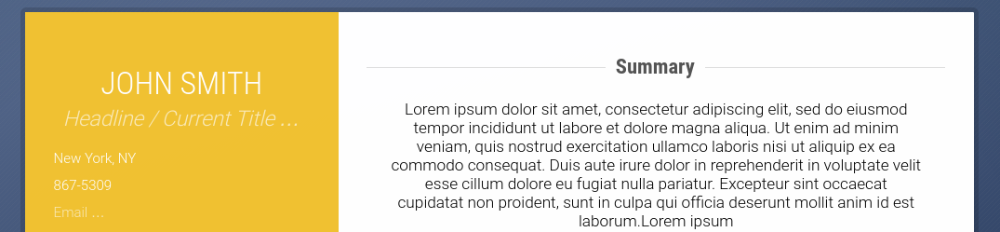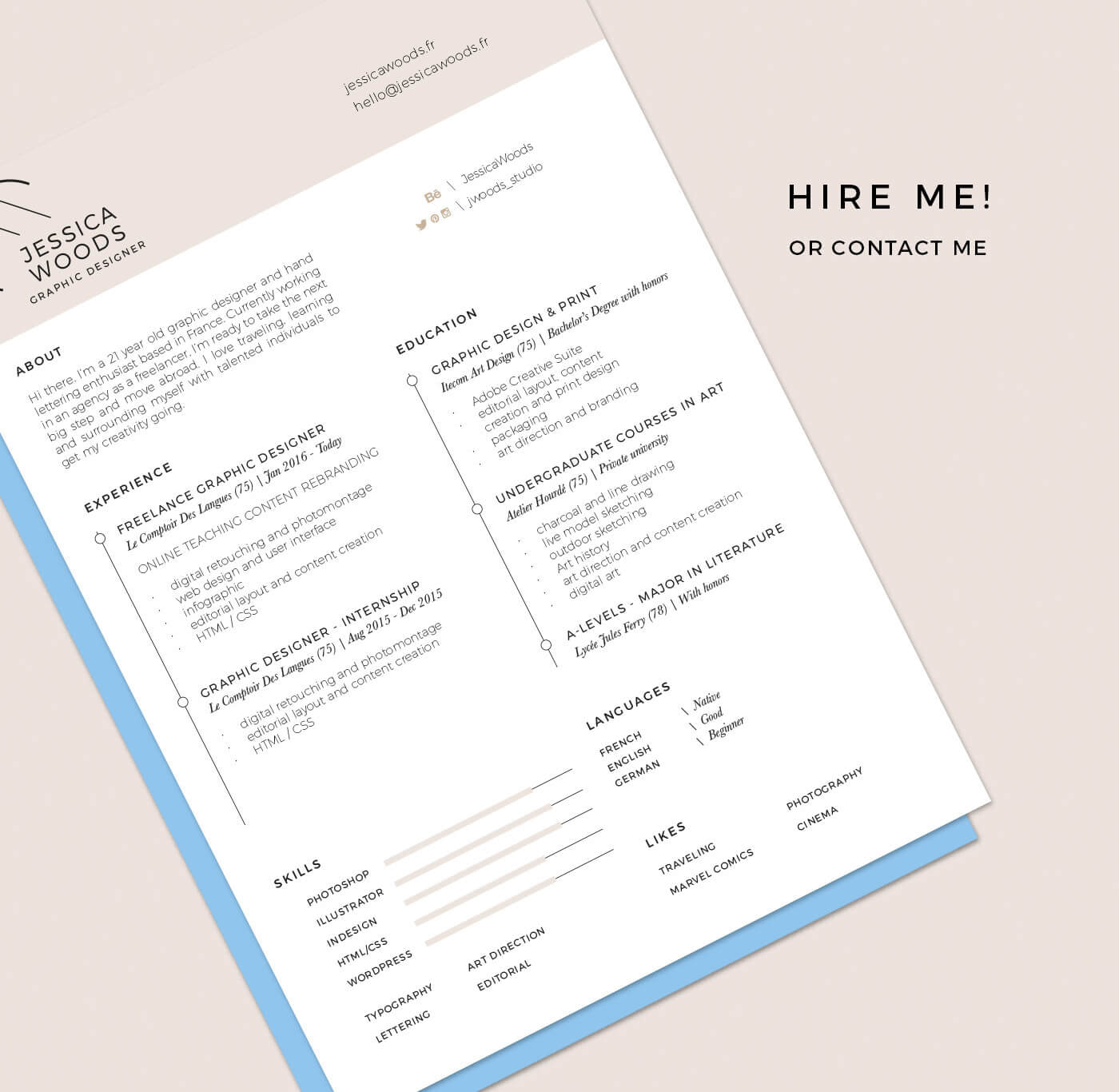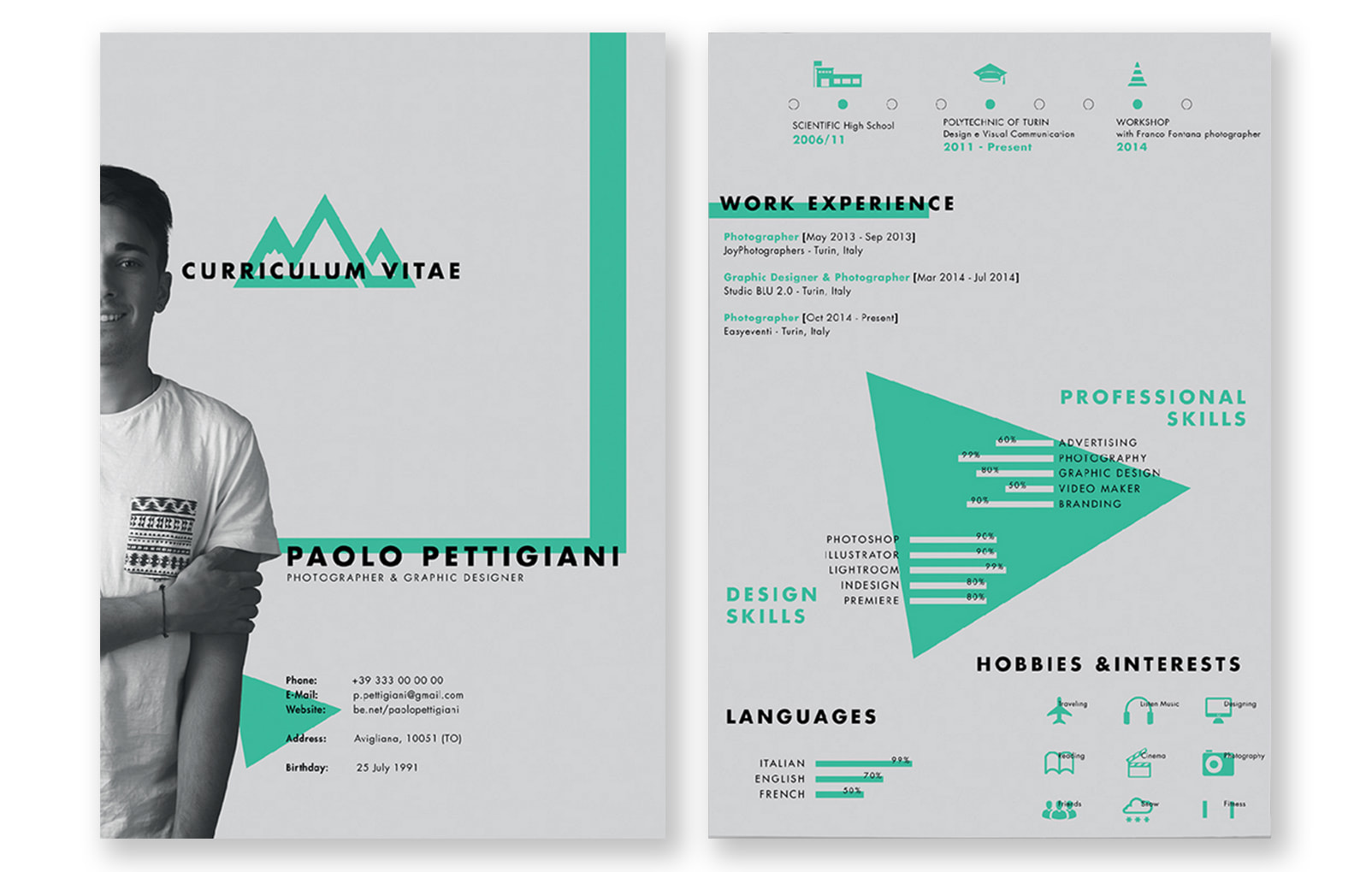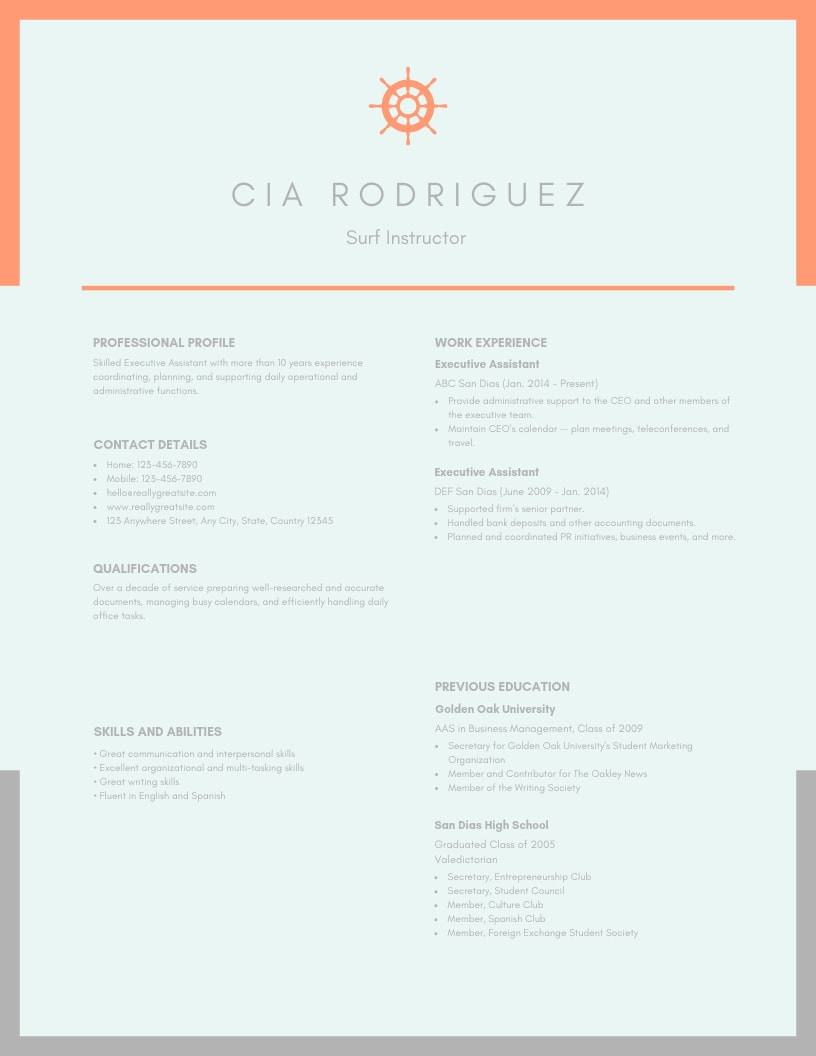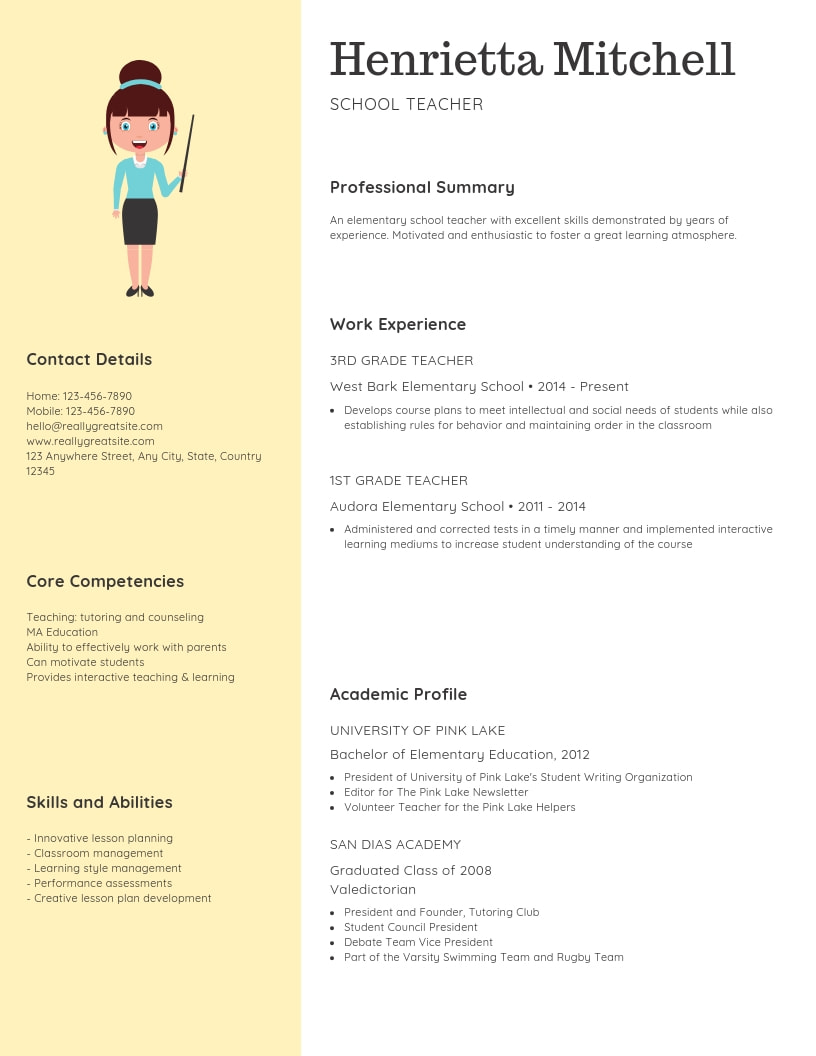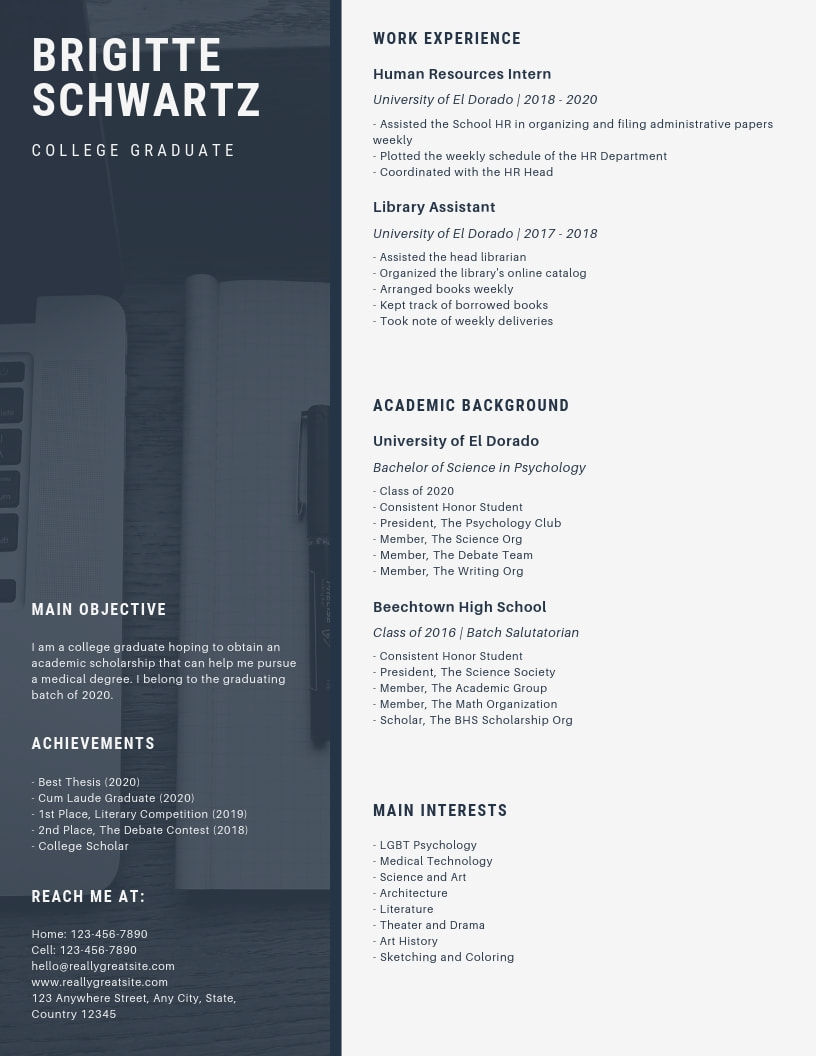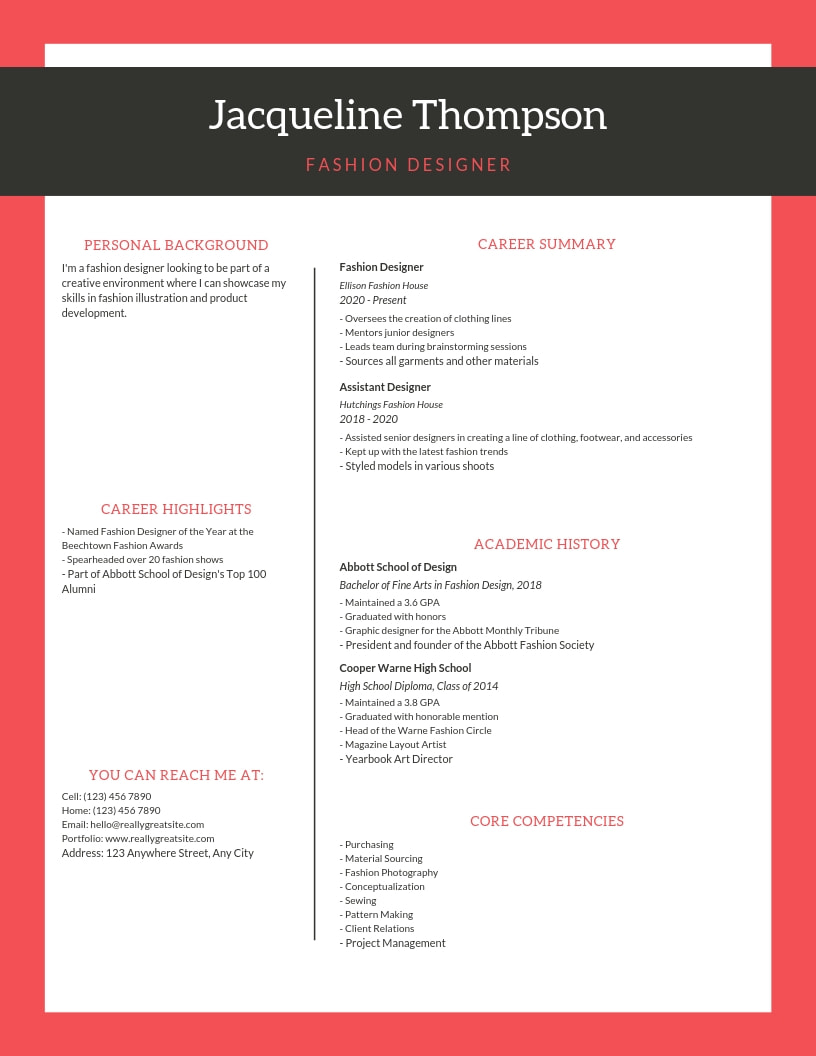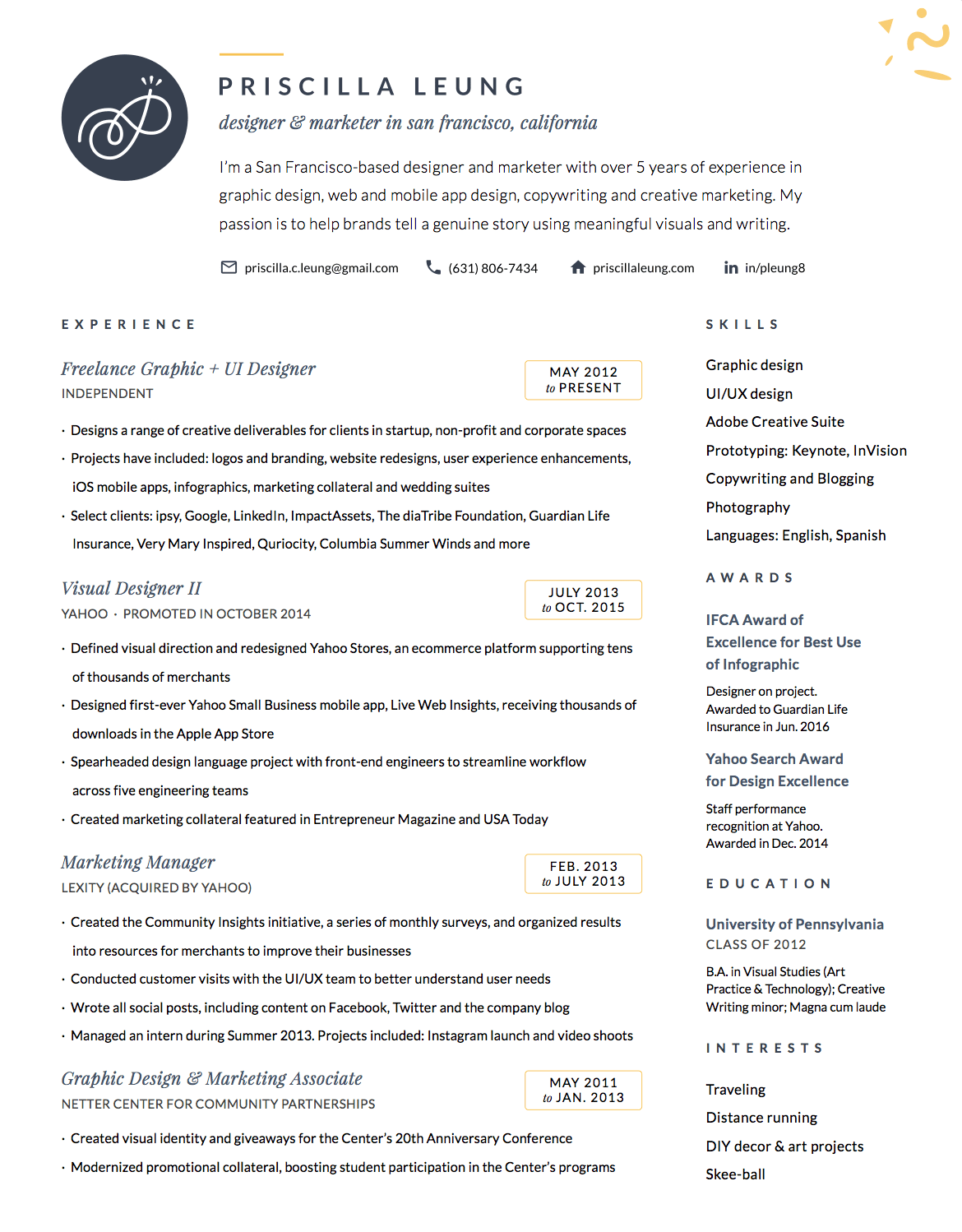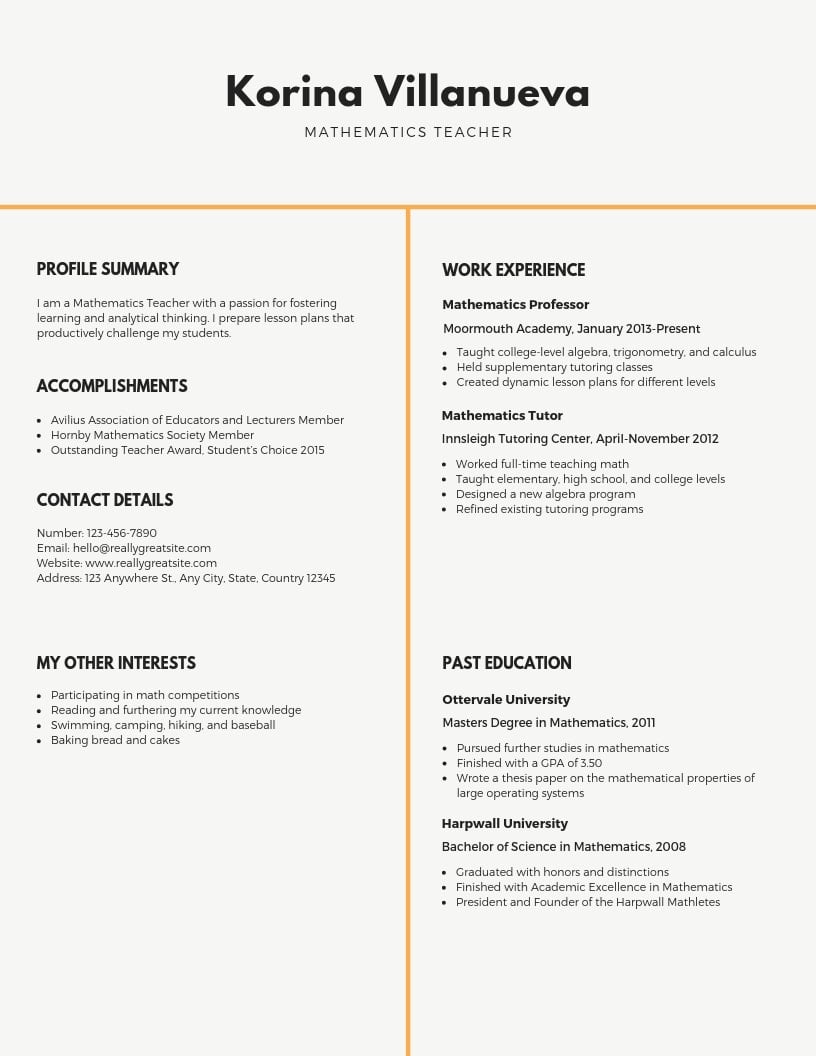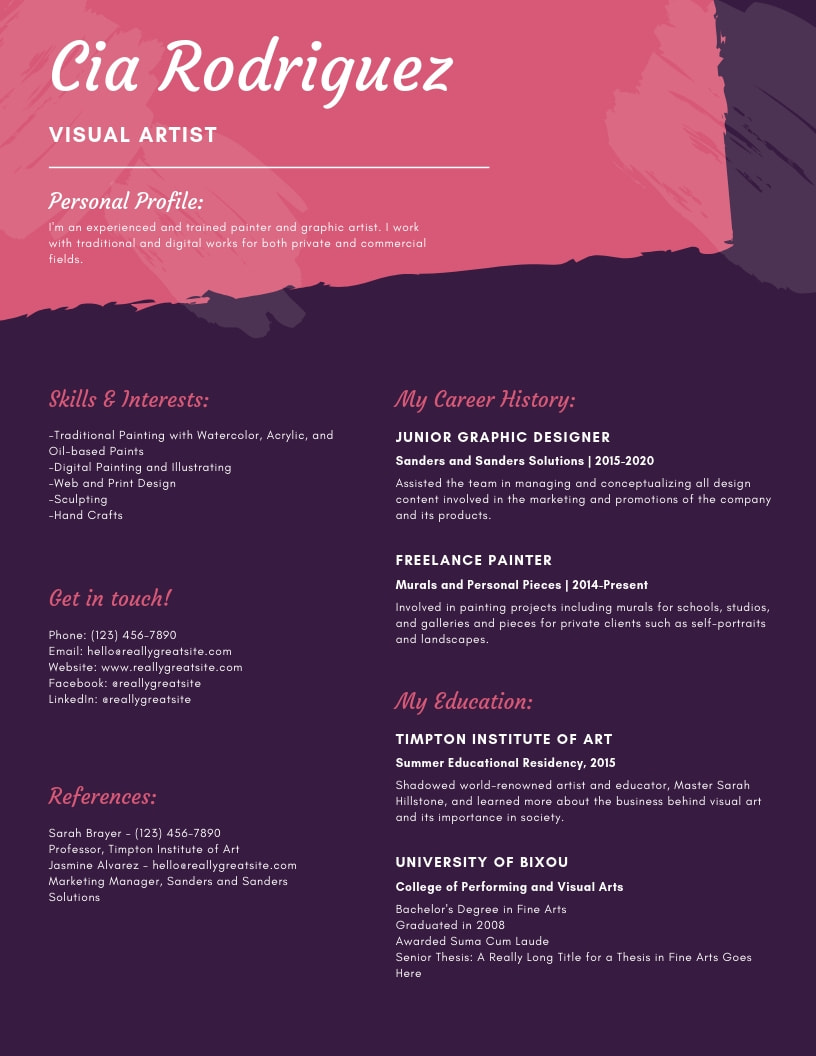
29 Cool Colorful Resume Cv Templates To Stand Out Creatively In 2020. Which resume fonts to avoid? You can use a variety of resume fonts and still have an. (depending on the particular font, but no smaller than that) is standard. Instead, choose a clean, simple resume font while it may be tempting to keep your entire resume on one page, avoid dropping your font size below 10 points. What about bolding, italicizing, resume font size, and section heading titles? Resume font colors should remain consistent throughout the resume and we recommend never using more than two unique colors (i.e. Larger sizes are acceptable for looking for colors that are guaranteed to look good together? Complex fonts can make your resume difficult to read, which could encourage employers to overlook it. The best font pairs agree with each other, work together in harmony, and. Make your headings and name stand out. Choosing the right font can help your resume get the attention it deserves from hiring managers. When it comes to resume font, size, and color, there is no one size fits all. Other serif fonts (with tails) to consider that are any of the above fonts would be reasonable for a resume as long as you consistently use one font only. The most common font to use is times new roman, in black and size 12 points. For resumes, a font size of 10 to 12 pt.
The template is designed to showcase your skills and experience in a sleek way. When choosing colors and fonts, you should pay attention to the associations that they traditionally evoke among users. What about bolding, italicizing, resume font size, and section heading titles? These fonts give your resume a modern and clean look according to polly buckland, managing director of the typeface group, though she cautions that when used in bold, it because fonts are a foundational nuance factor in a resume, hanold says, you can leverage the right font to your benefit. The iif syntax did not work as i expected i.e. The majority of resumes use a standard black and white format. (depending on the particular font, but no smaller than that) is standard. Employers look through hundreds of resumes so you need your to stand out. The best font size for resume, especially for the main text, falls between 10 and 12 points. Certain colors or shades sometimes appear as invisible to an ats and others. Think about your brand first, define its properties and qualities. The template is designed to showcase your skills and experience in a sleek way. At the same time, you want to give a positive first impression that you're a serious. The most common font to use is times new roman, in black and size 12 points. Every font is free to download! What are the best fonts to use on a resume and cover letter? When i have 0 in p and 5 in a then the font color should be green and the vice versa should be red. Instead, choose a clean, simple resume font while it may be tempting to keep your entire resume on one page, avoid dropping your font size below 10 points. You know you need a job, and this means you need a résumé. ✓ click to find the best 91 free fonts in the resume style. If, on the other hand, the company uses lots of color and bubble cartoons, for example, that's a good indication that its signature style is youthful and fun. At a glance, the structure already expresses certain ideas to. To set the font color in html, use the style attribute. The style attribute specifies an inline style for an element. Resume font colors should remain consistent throughout the resume and we recommend never using more than two unique colors (i.e. I'll put really unimportant stuff in a 9 point. The resume template below uses the color red for contrast and bold formatting to. Even in organizations where parsing software is used to sort candidate resumes, eventually a human will take a look at the resume as well. You can use a variety of resume fonts and still have an. You are the person to decide how much colours to use and in what proportion. The body of your resume don't bother with color for a digital resume.
Emphasize Career Highlights On Your Resume By Using Color Strategically. What about bolding, italicizing, resume font size, and section heading titles? Make your headings and name stand out. Complex fonts can make your resume difficult to read, which could encourage employers to overlook it. You can use a variety of resume fonts and still have an. Instead, choose a clean, simple resume font while it may be tempting to keep your entire resume on one page, avoid dropping your font size below 10 points. Choosing the right font can help your resume get the attention it deserves from hiring managers. The best font pairs agree with each other, work together in harmony, and. When it comes to resume font, size, and color, there is no one size fits all. Resume font colors should remain consistent throughout the resume and we recommend never using more than two unique colors (i.e. Larger sizes are acceptable for looking for colors that are guaranteed to look good together? The most common font to use is times new roman, in black and size 12 points. Other serif fonts (with tails) to consider that are any of the above fonts would be reasonable for a resume as long as you consistently use one font only. (depending on the particular font, but no smaller than that) is standard. For resumes, a font size of 10 to 12 pt. Which resume fonts to avoid?
At a glance, the structure already expresses certain ideas to.
20 Stylish Resume Color Schemes For 2021 Design Shack. Which resume fonts to avoid? When it comes to resume font, size, and color, there is no one size fits all. The best font pairs agree with each other, work together in harmony, and. For resumes, a font size of 10 to 12 pt. You can use a variety of resume fonts and still have an. Choosing the right font can help your resume get the attention it deserves from hiring managers. Instead, choose a clean, simple resume font while it may be tempting to keep your entire resume on one page, avoid dropping your font size below 10 points. What about bolding, italicizing, resume font size, and section heading titles? Other serif fonts (with tails) to consider that are any of the above fonts would be reasonable for a resume as long as you consistently use one font only. Resume font colors should remain consistent throughout the resume and we recommend never using more than two unique colors (i.e. Complex fonts can make your resume difficult to read, which could encourage employers to overlook it. Larger sizes are acceptable for looking for colors that are guaranteed to look good together? The most common font to use is times new roman, in black and size 12 points. (depending on the particular font, but no smaller than that) is standard. Make your headings and name stand out.
If you're not sure what the best size is, start with font size consistent style makes your resume look professional and easy to read.
9 Best Resume Fonts Size Color Fonts To Avoid. Which resume fonts to avoid? Other serif fonts (with tails) to consider that are any of the above fonts would be reasonable for a resume as long as you consistently use one font only. Larger sizes are acceptable for looking for colors that are guaranteed to look good together? (depending on the particular font, but no smaller than that) is standard. Resume font colors should remain consistent throughout the resume and we recommend never using more than two unique colors (i.e. The most common font to use is times new roman, in black and size 12 points. When it comes to resume font, size, and color, there is no one size fits all. For resumes, a font size of 10 to 12 pt. What about bolding, italicizing, resume font size, and section heading titles? Complex fonts can make your resume difficult to read, which could encourage employers to overlook it. You can use a variety of resume fonts and still have an. Instead, choose a clean, simple resume font while it may be tempting to keep your entire resume on one page, avoid dropping your font size below 10 points. Choosing the right font can help your resume get the attention it deserves from hiring managers. The best font pairs agree with each other, work together in harmony, and. Make your headings and name stand out.
(depending on the particular font, but no smaller than that) is standard.
9 Best Resume Fonts Size Color Fonts To Avoid. When it comes to resume font, size, and color, there is no one size fits all. (depending on the particular font, but no smaller than that) is standard. Choosing the right font can help your resume get the attention it deserves from hiring managers. You can use a variety of resume fonts and still have an. Other serif fonts (with tails) to consider that are any of the above fonts would be reasonable for a resume as long as you consistently use one font only. For resumes, a font size of 10 to 12 pt. Which resume fonts to avoid? Instead, choose a clean, simple resume font while it may be tempting to keep your entire resume on one page, avoid dropping your font size below 10 points. What about bolding, italicizing, resume font size, and section heading titles? Complex fonts can make your resume difficult to read, which could encourage employers to overlook it. The best font pairs agree with each other, work together in harmony, and. Make your headings and name stand out. Resume font colors should remain consistent throughout the resume and we recommend never using more than two unique colors (i.e. Larger sizes are acceptable for looking for colors that are guaranteed to look good together? The most common font to use is times new roman, in black and size 12 points.
29 Cool Colorful Resume Cv Templates To Stand Out Creatively In 2020. (depending on the particular font, but no smaller than that) is standard. You can use a variety of resume fonts and still have an. What about bolding, italicizing, resume font size, and section heading titles? When it comes to resume font, size, and color, there is no one size fits all. Larger sizes are acceptable for looking for colors that are guaranteed to look good together? Choosing the right font can help your resume get the attention it deserves from hiring managers. For resumes, a font size of 10 to 12 pt. Which resume fonts to avoid? Instead, choose a clean, simple resume font while it may be tempting to keep your entire resume on one page, avoid dropping your font size below 10 points. Resume font colors should remain consistent throughout the resume and we recommend never using more than two unique colors (i.e. The most common font to use is times new roman, in black and size 12 points. Other serif fonts (with tails) to consider that are any of the above fonts would be reasonable for a resume as long as you consistently use one font only. Complex fonts can make your resume difficult to read, which could encourage employers to overlook it. Make your headings and name stand out. The best font pairs agree with each other, work together in harmony, and.
The majority of resumes use a standard black and white format. ✓ click to find the best 91 free fonts in the resume style. Having color on your resume can influence this impression mark, provided you use an effective strategy. The most common font to use is times new roman, in black and size 12 points. For resumes, a font size of 10 to 12 pt. Better yet, a résumé that looks maybe just a little more awesome than all the others in that recruiter's pile. Choosing the right font can help your resume get the attention it deserves from hiring managers. 30+ tips on font size, types, style, and more. A resume without a legible font is almost not worthy to the recruiter. I have to work a way around to get what i want with switch statement.